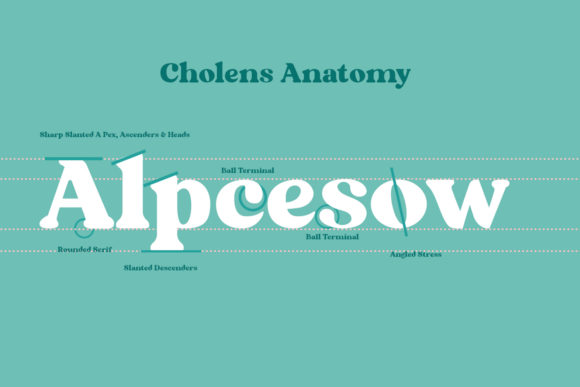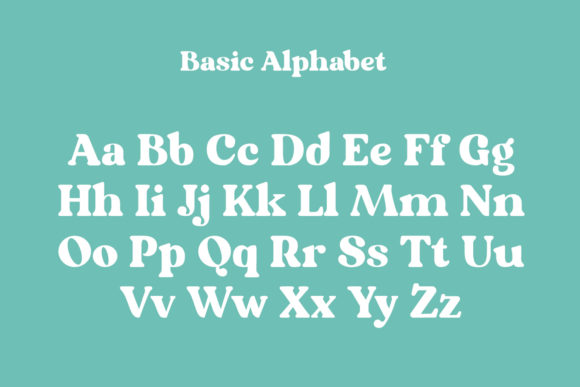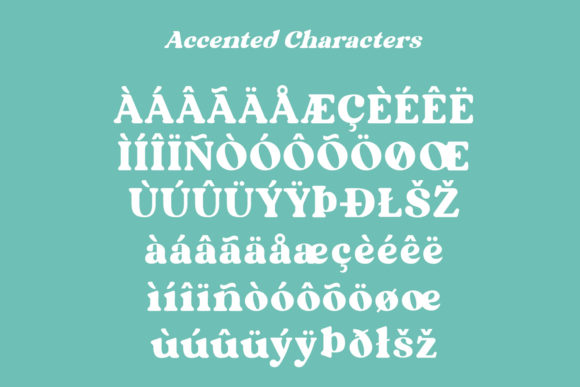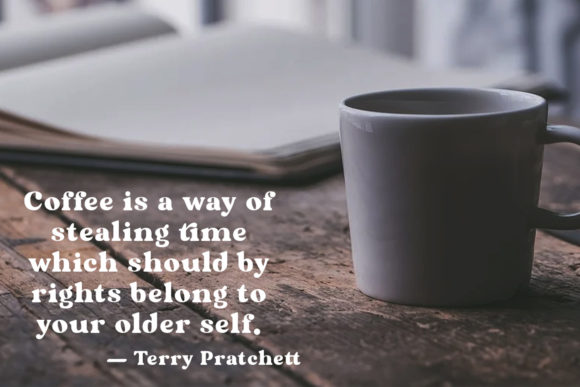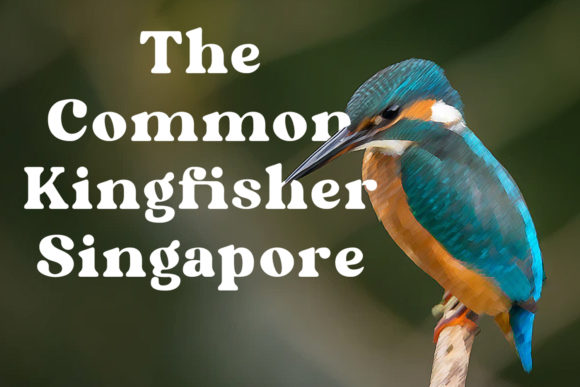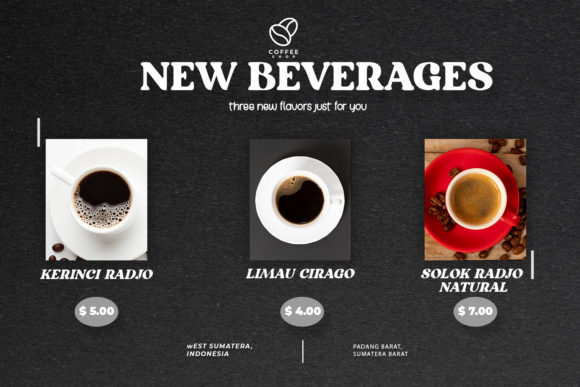
The Designer’s Delight: Getting to Know Cholens Font
I’ll never forget the time I was working on a project for a client who wanted an elegant, yet simple font to convey their brand’s message. I spent hours scouring through font libraries, but nothing seemed quite right. That was until I stumbled upon Cholens Font. ✨ It was love at first sight! The round lettered, elegant serif font instantly caught my attention, and I knew I had found the perfect fit for my project.
An Honest Review of Cholens Font
So, what makes Cholens Font so special? Let’s dive into the good stuff and a few quirks I’ve discovered.
- ✅ Versatility: Cholens Font is suitable for a wide variety of designs, from elegant wedding invitations to modern business branding.
- ✨ Elegant Simplicity: The neat and simple style of Cholens Font makes it easy to read and pairs well with a range of design elements.
- 📝 Legibility: The font’s clear and rounded letters ensure that your message is conveyed clearly, even at smaller font sizes.
While Cholens Font is an excellent choice for many projects, there are a few things to keep in mind:
- 🤔 Limited Contrast: The font’s elegant simplicity can sometimes make it difficult to create visual contrast between headings and body text.
- ⚠️ Not Ideal for Body Text: While Cholens Font is legible, it’s not the best choice for long blocks of body text due to its elegant, yet formal nature.
- Experiment with OpenType features like ligatures and stylistic alternates to add visual interest to your design.
The Story Behind Cholens Font
Cholens Font was designed with the goal of creating a elegant, yet simple font that could be used for a wide range of design projects. The designer, inspired by traditional serif fonts, aimed to create a font that was both timeless and versatile. The result is a font that is both elegant and approachable, making it perfect for designs that require a touch of sophistication.
Q: What type of projects is Cholens Font best suited for?
A: Cholens Font is suitable for a wide range of projects, including wedding invitations, business branding, and editorial design.